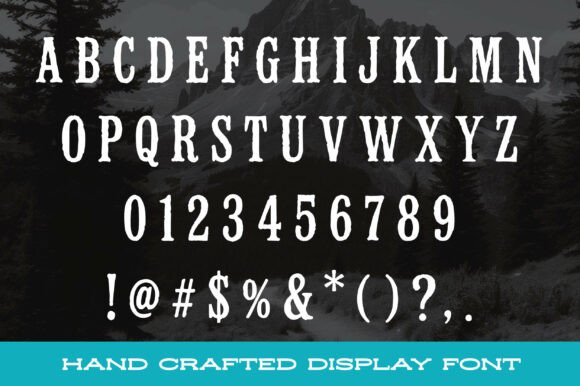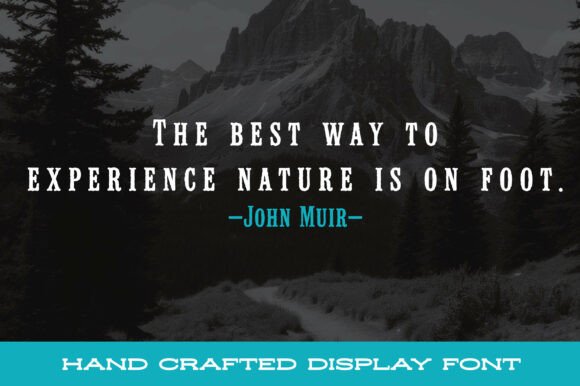
Introduction to High Trail Font
As you gaze out at the rugged landscape, the wind whipping your hair into a frenzy, you feel a spark of creativity ignite within you. The mountains, with their untamed beauty and unforgiving power, have always been a source of inspiration for designers and artists. And now, with the High Trail Font, you can capture that essence in your designs.
High Trail Font is a true gem for any creative project, offering a unique blend of ruggedness and elegance that’s sure to leave a lasting impression. With its tall, narrow characters and weathered look, this font is perfect for outdoor branding, Western themes, or any project that demands a bold, backcountry personality. And the best part? You can download it for free, making it an invaluable design resource for any creative.
Whether you’re working on a high-quality brochure, a website, or even a simple poster, the High Trail Font is sure to elevate your design and transport your audience to the high trails and windswept ridgelines that inspired it.
Key Features of High Trail Font
- High-quality font with a unique, modern design that sets it apart from other fonts in its category.
- Perfect for use in logos, branding materials, and other creative projects where a modern, unique font is desired.
Honest Review: High Trail Font
As a designer, I’m always on the lookout for high-quality fonts to enhance my creative projects. The High Trail Font caught my attention, and I was excited to give it a try. Here’s my honest review.
- Unique, hand-drawn style that adds a touch of personality to any design
- Only available in a limited number of font weights and styles
Overall, the High Trail Font is a solid choice for designers looking for a unique, hand-drawn font for their creative projects. While it has some limitations, its high quality and free download make it a valuable design resource.
Use the High Trail Font with a transparent background to create a modern and sleek design. You can also pair it with other fonts to create a unique and eye-catching look. Experiment with different font sizes and styles to find the perfect combination for your creative project.
The High Trail Font is perfect for creating a logo, branding materials, or even a wedding invitation. Its high-quality design and transparent background make it ideal for a wide range of creative projects.